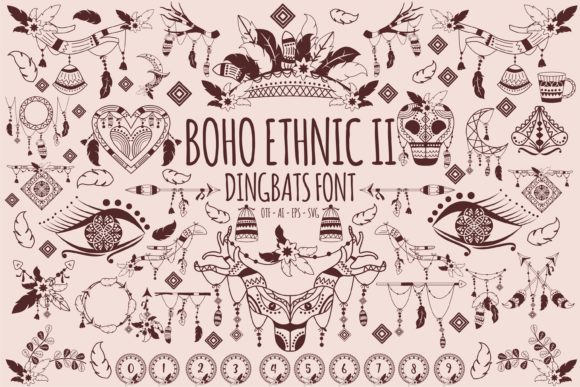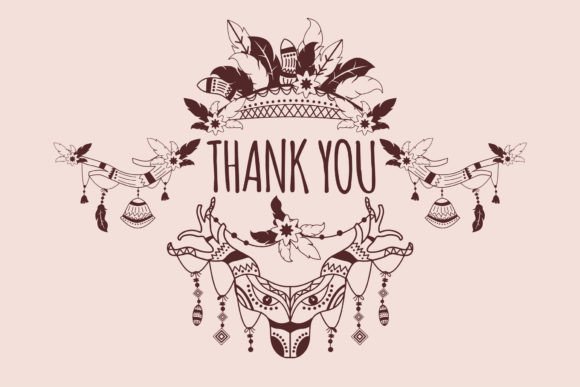
Boho Ethnic II Font
About Boho Ethnic II Font
“Boho Ethnic II” is a cool and relaxed dingbats font that exudes a bohemian and hippie vibe. With its unique and original look, this font is perfect for a wide range of crafty ideas and creative projects.
The distinctive style of “Boho Ethnic II” makes it stand out and appeal to those seeking a bohemian aesthetic. The font features a collection of symbols and icons inspired by ethnic and tribal designs, nature elements, and cultural motifs. These symbols can be used to add a touch of artistic flair to your crafts, whether it’s creating letterheads, titles, logos, or stationery.
The relaxed and free-spirited nature of “Boho Ethnic II” makes it versatile and adaptable to various design themes. It works well for projects that aim to convey a sense of wanderlust, adventure, or cultural appreciation. Whether you’re working on scrapbooking, journaling, or designing invitations, the bohemian vibe of this font can bring a unique and captivating element to your creations.
One of the key strengths of “Boho Ethnic II” is its ability to add an organic and handcrafted feel to your designs. The hand-drawn appearance of the symbols and the irregularity in their shapes give them an authentic and artistic quality. This makes the font especially suitable for DIY projects, handmade goods, and any design that embraces a rustic or artisanal aesthetic.
The versatility of “Boho Ethnic II” extends beyond its use as a dingbats font. Its symbols can be combined with other fonts to create unique typography compositions, or they can be used as standalone decorative elements. The font’s relaxed and bohemian vibe makes it a great choice for designs that seek to evoke a sense of peace, harmony, and connection with nature.
In summary, “Boho Ethnic II” is a cool and relaxed dingbats font with a bohemian and hippie aesthetic. Its unique look and versatile nature make it suitable for a wide range of crafty ideas, from letterheads and titles to stationery and more. Embrace the originality and artistic flair of “Boho Ethnic II” to bring a bohemian vibe to your creative projects and let it inspire a sense of adventure and cultural appreciation.